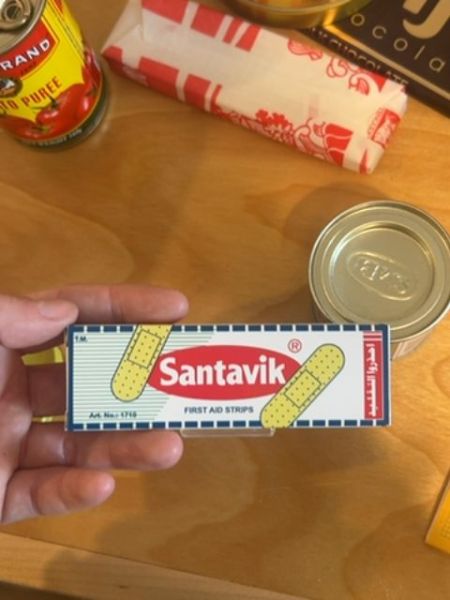
Santavik
First Aid Strips used for covering minor cuts and burns.
The typography is simple and bold, using a sans-serif font for the product name 'Santavik' which emphasizes clarity and readability. The font size is large against the contrasting background, enhancing visibility. Other text elements use a less dominant typeface, retaining focus on the brand name.
The packaging is compact and rectangular, featuring a bold red and white color scheme. The design includes an illustration of band-aids and a blue checkered border that offers a clean, medical appearance.